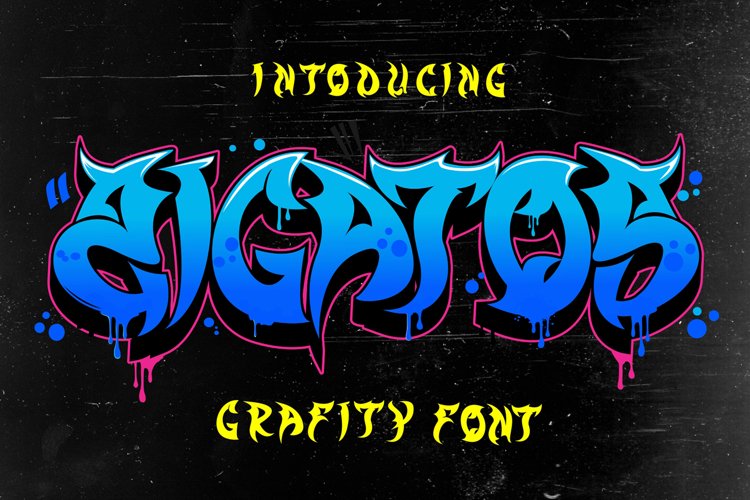
Zigatos - Grafity Font
ZIGATOS
Hello, this is Zigatos modern Graffiti Font!
This Fonts designed so that users can use it more easily and make graffiti designs easier. Zigatos is very suitable for use in various media such as; packaging, logos, labels, posters, shirt designs, bulletins, typography, and many other media, especially with graffiti look.
Feattures:
• All Caps